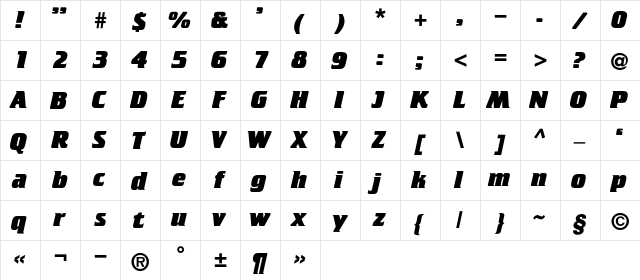
CricketHeavy Regular Font Preview
CricketHeavy Regular
Design Context for CricketHeavy Typeface
CricketHeavy is a composed and adaptable typeface that performs quietly and consistently across a wide range of design contexts.
Pro Tip: Pair CricketHeavy with a font of contrasting weight or personality to build a more expressive typographic hierarchy.